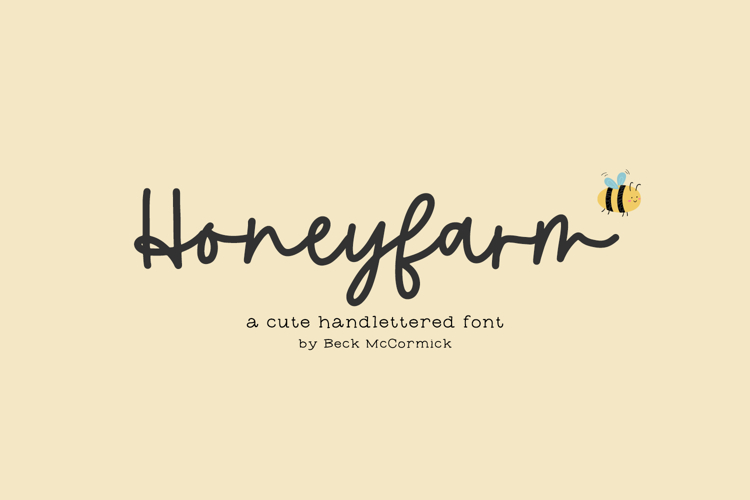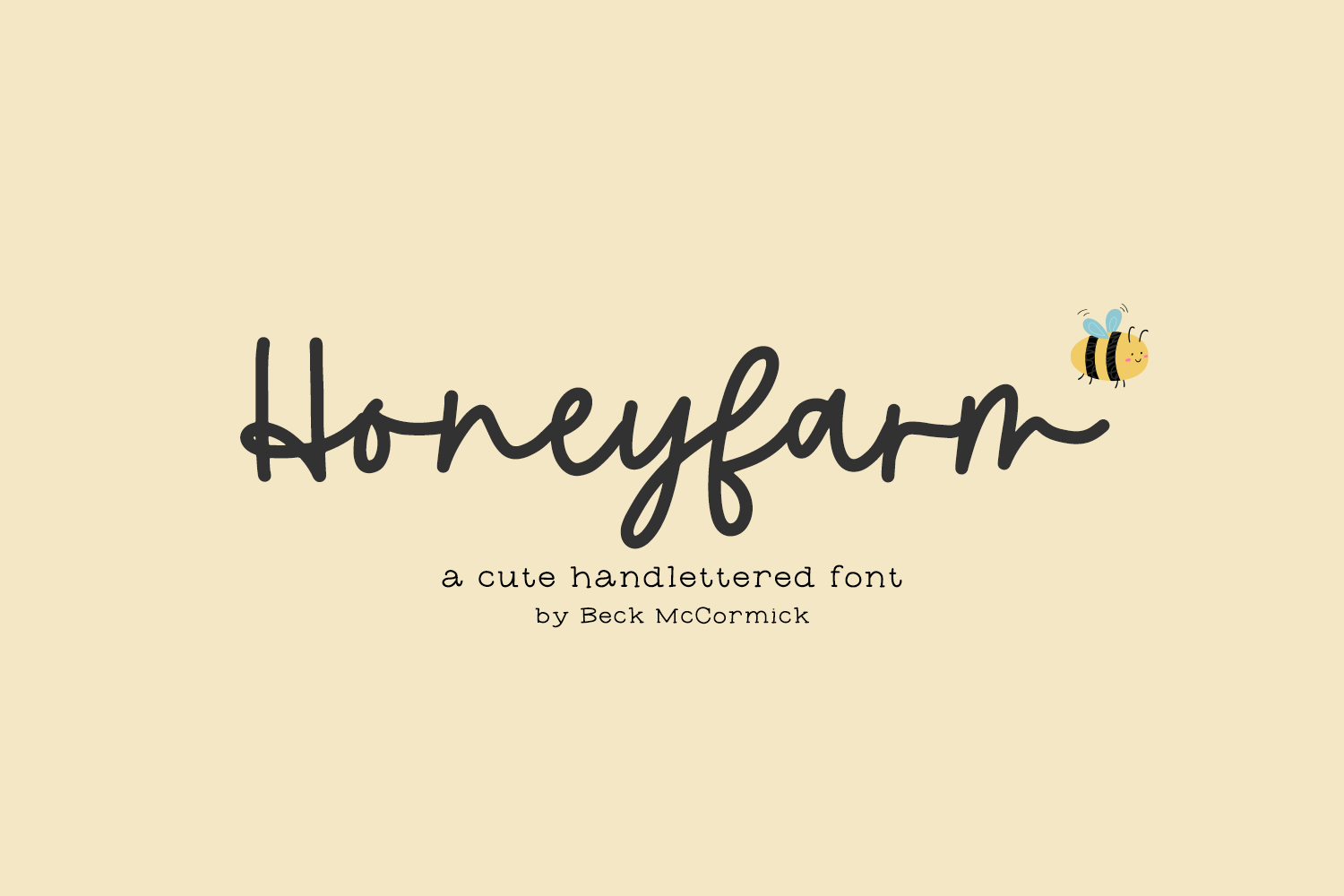
Introducing Honeyfarm, a cute monoline cursive font.
Honeyfarm is best for:
- feminine, crafty projects with your Cricut or Silhouette machine, or your SVG design business
- farmhouse decor and crafts
- digital planners & apps like Goodnotes
- website design + website accents, blog design
- feminine graphic tee shirt design & other apparel